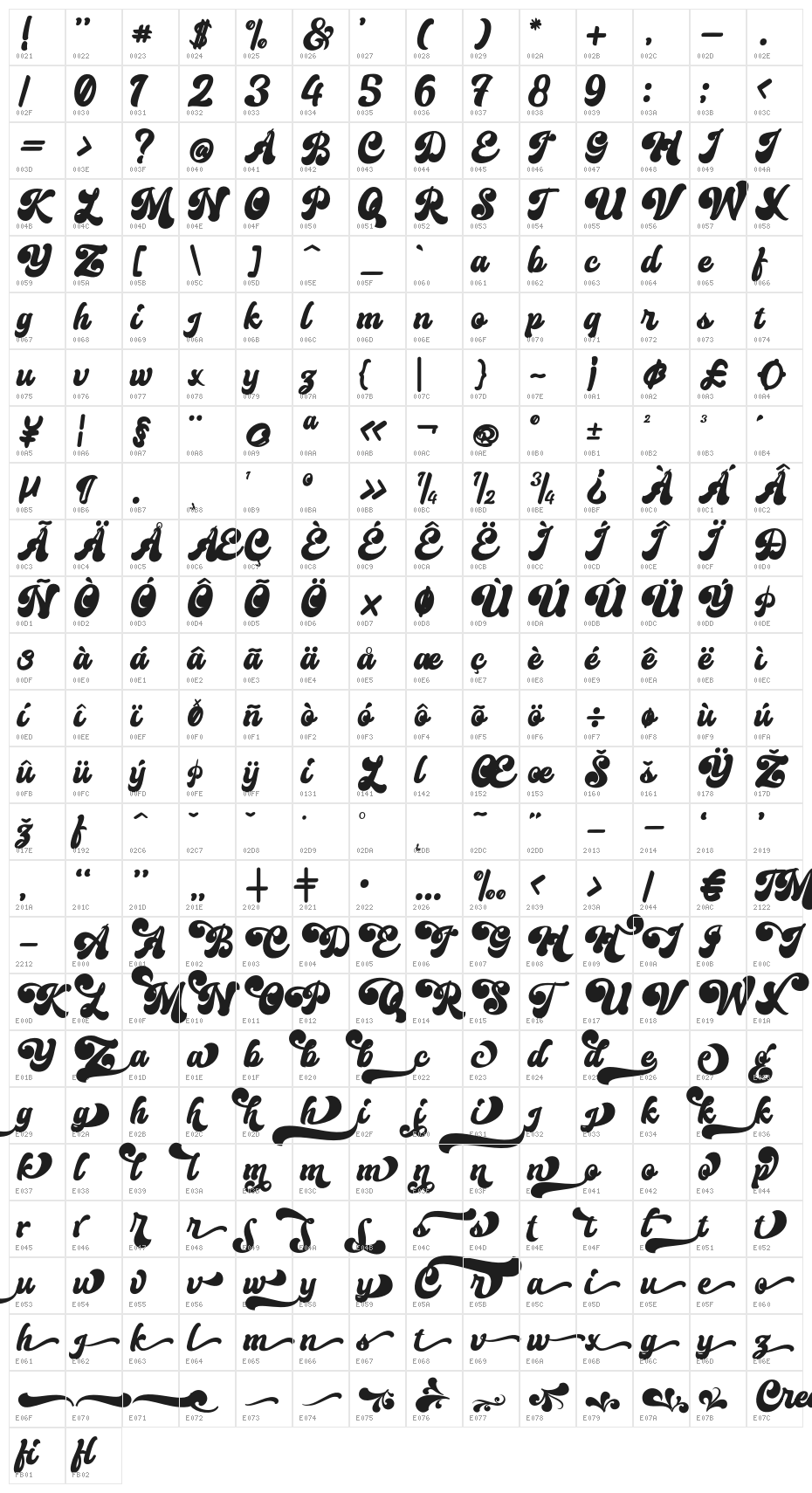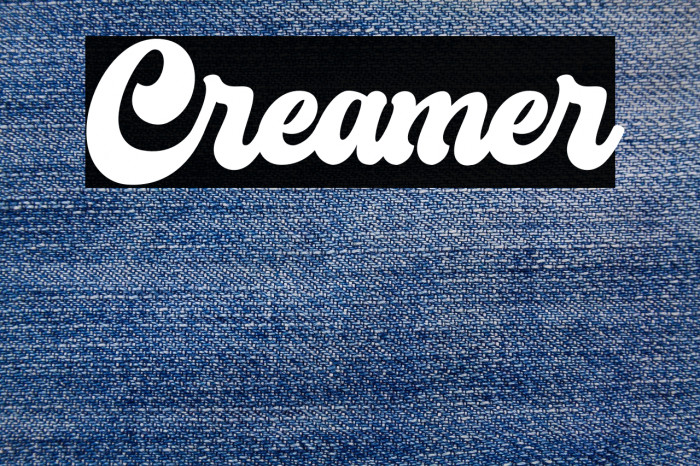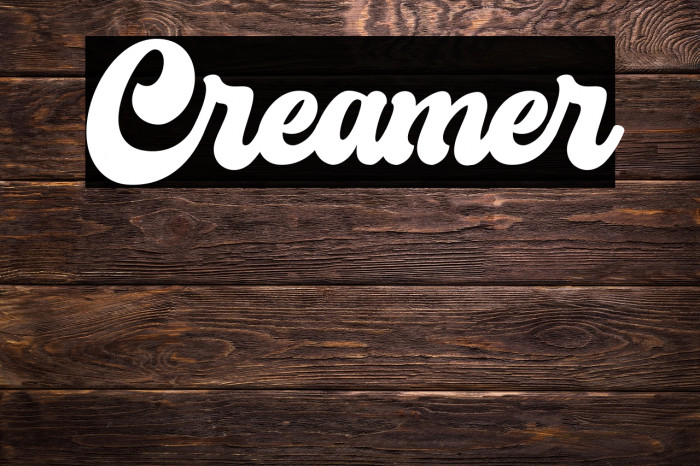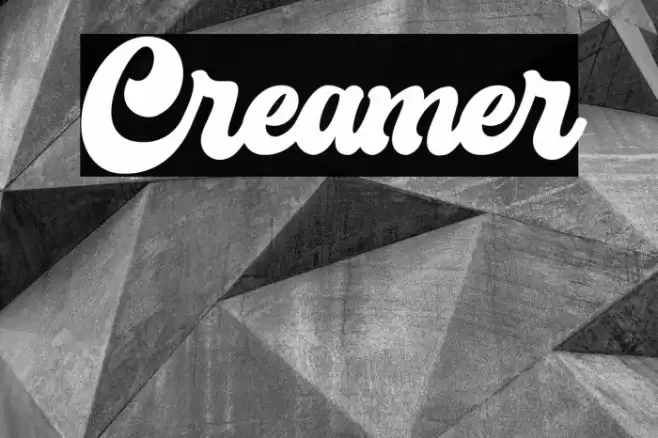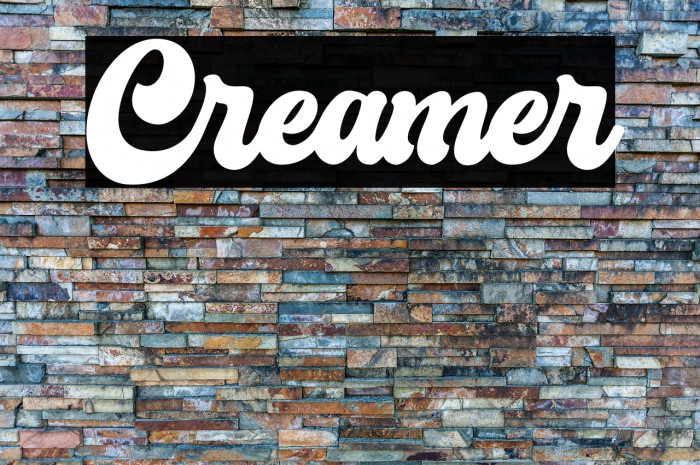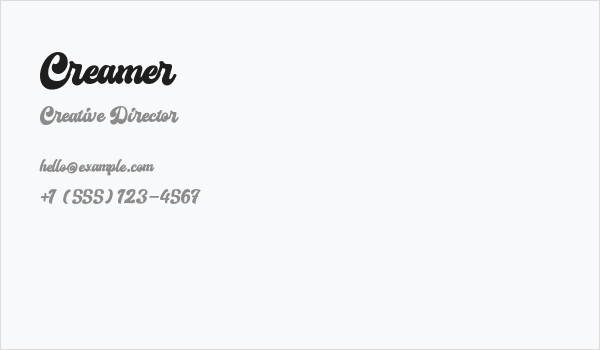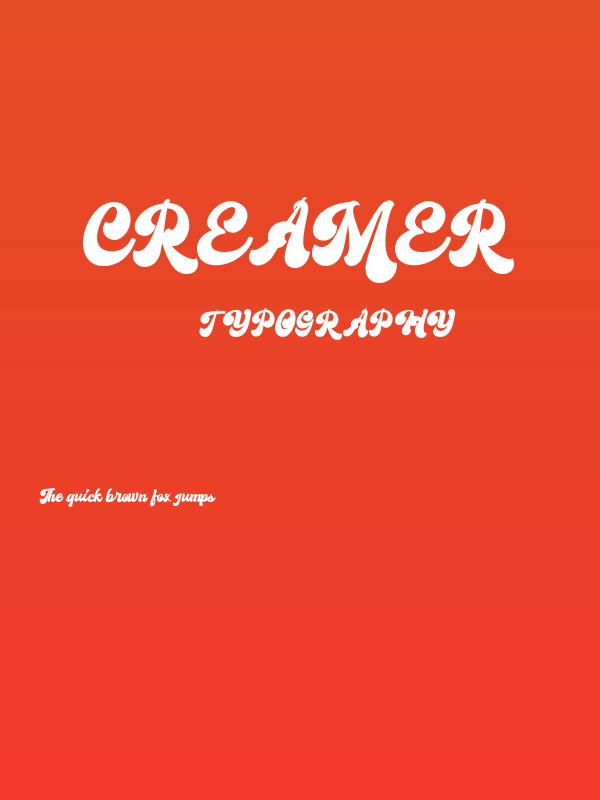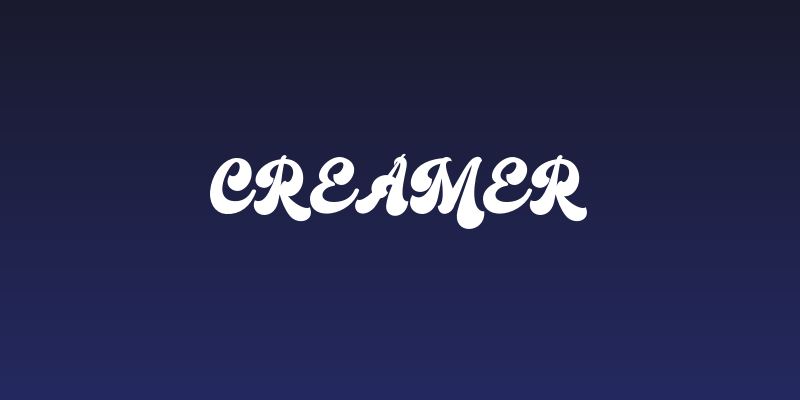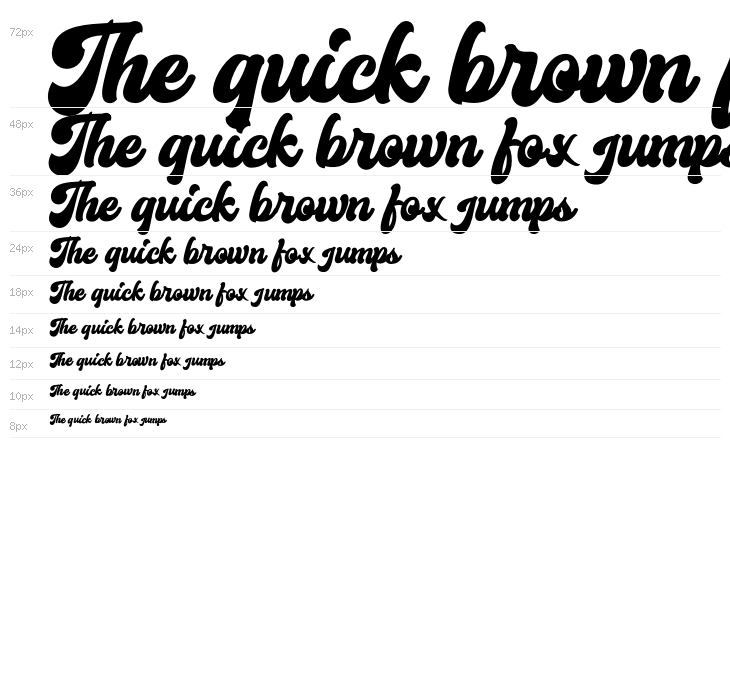
Creamer Font
Creamer Description
This font features a bold and flowing script style, characterized by its thick, rounded strokes and smooth, connected letters. The uppercase letters exhibit a dramatic flair with exaggerated curves and loops, while the lowercase letters maintain a consistent flow, enhancing readability. The numerals are equally bold, with a playful yet sophisticated appearance. Special characters are designed to complement the overall aesthetic, maintaining the same bold and fluid style. This font exudes a sense of elegance and dynamism, making it suitable for eye-catching designs.